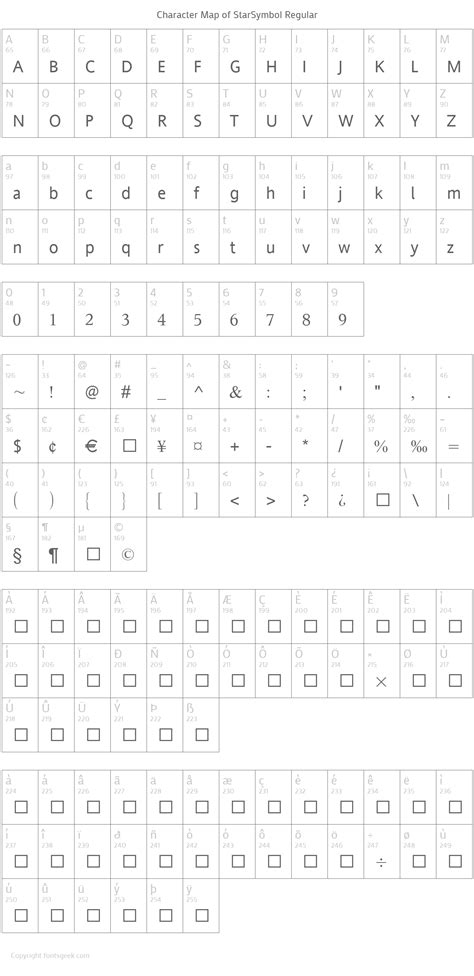
The Rise of Symbol Fonts in the US: A Guide to Understanding and Exploring
In recent years, symbol fonts have become a hot topic in design and digital communities across the United States. What once seemed like a niche interest has now gained mainstream attention, with many users curious about its potential and applications. As we delve into the world of symbol fonts, it's clear that there's much more to explore beyond the surface level. In this article, we'll take a closer look at the reasons behind symbol fonts' growing popularity, how they work, and what opportunities and considerations come with their use.
Why Symbol Fonts Is Gaining Attention in the US
Understanding the Context
Symbol fonts have struck a chord with designers, marketers, and users alike, and it's not hard to see why. With the increasing demand for visually appealing and unique content, symbol fonts offer a fresh way to express creativity and convey complex ideas in a simple yet effective manner. Moreover, the rise of social media and online platforms has created new avenues for symbol fonts to shine, from emojis and emoticons to custom graphics and nontextual scripts. As users grow more comfortable using and viewing symbols in their digital interactions, the need for more diverse and sophisticated symbol fonts has become a pressing concern.
How Symbol Fonts Actually Works
For those new to symbol fonts, understanding the basics is essential. At its core, a symbol font is a type of font that uses non- alphabetical characters to convey meaning. While still a form of typography, symbol fonts operate independently of alphabet-based languages, allowing users to create and display information in innovative and dynamic ways. This includes emotive icons, decorative symbols, and simple yet powerful ASCII characters. When you think about it, we're already comfortable using and interpreting various types of symbol fonts in our daily digital lives โ from social media and texting to logos and graphics.
Common Questions People Have About Symbol Fonts
Key Insights
What's the point of symbol fonts?While they may seem like a novel curiosity, symbol fonts can play a crucial role in digital communication and marketing strategies. They can help grab attention, add visual interest, and even simplify complex information โ making them an attractive addition to any content creator's toolkit.
Are symbol fonts the same as emojis?While both use visual symbols to convey meaning, symbol fonts encompass a far broader range of content, from intricate ASCII art to specialized digital phrasing. Emojis, meanwhile, are typically graphic characters used to express emotions and ideas within text.
Can anyone create and use symbol fonts?
The versatility of symbol fonts lies in their accessibility โ you don't need extensive design experience to begin experimenting with them. However, some cases may require more advanced skills or technical knowledge, but overall, symbol fonts strive to be user-friendly, allowing people from different walks of life to learn and explore their potential.
Opportunities and Considerations
If you're new to the world of symbol fonts, it's essential to have realistic expectations about their use and potential impact. Symbol fonts can enhance your content, add distinct visual flair, and even serve as a form of expression. However, over-reliance on symbol fonts might detract from the overall message, risking confusion or, worse, alienating your audience.
Things People Often Misunderstand
Symbol fonts aren't just for the young or tech-savvy crowdThey're for anyone interested in diverse communication and exploring alternative language tools. The value of symbol fonts lies not only in their unique looks but also in their broad applicability.
Symbol fonts aren't limited to digital platformsThey can complement printed and physical materials just as effectively, enhancing brand identity and user experiences across various media.
You don't need a background in design or technology to start using symbol fontsThere are many user-friendly tools and platforms out there that cater to diverse skill levels and interests.
Who Symbol Fonts May Be Relevant For
DesignersFrom graphic designers to UI/UX specialists, symbol fonts offer a new dimension of creativity and versatility in digital and print design.
CommunicatorsMarketing professionals, social media managers, and content creators can leverage symbol fonts to convey complex ideas in a visually appealing, engaging way.
EducatorsTeachers and instructors can use symbol fonts to create interactive, easy-to-understand visual aids that break down complex concepts into relatable, meaningful symbols.
Moving Forward